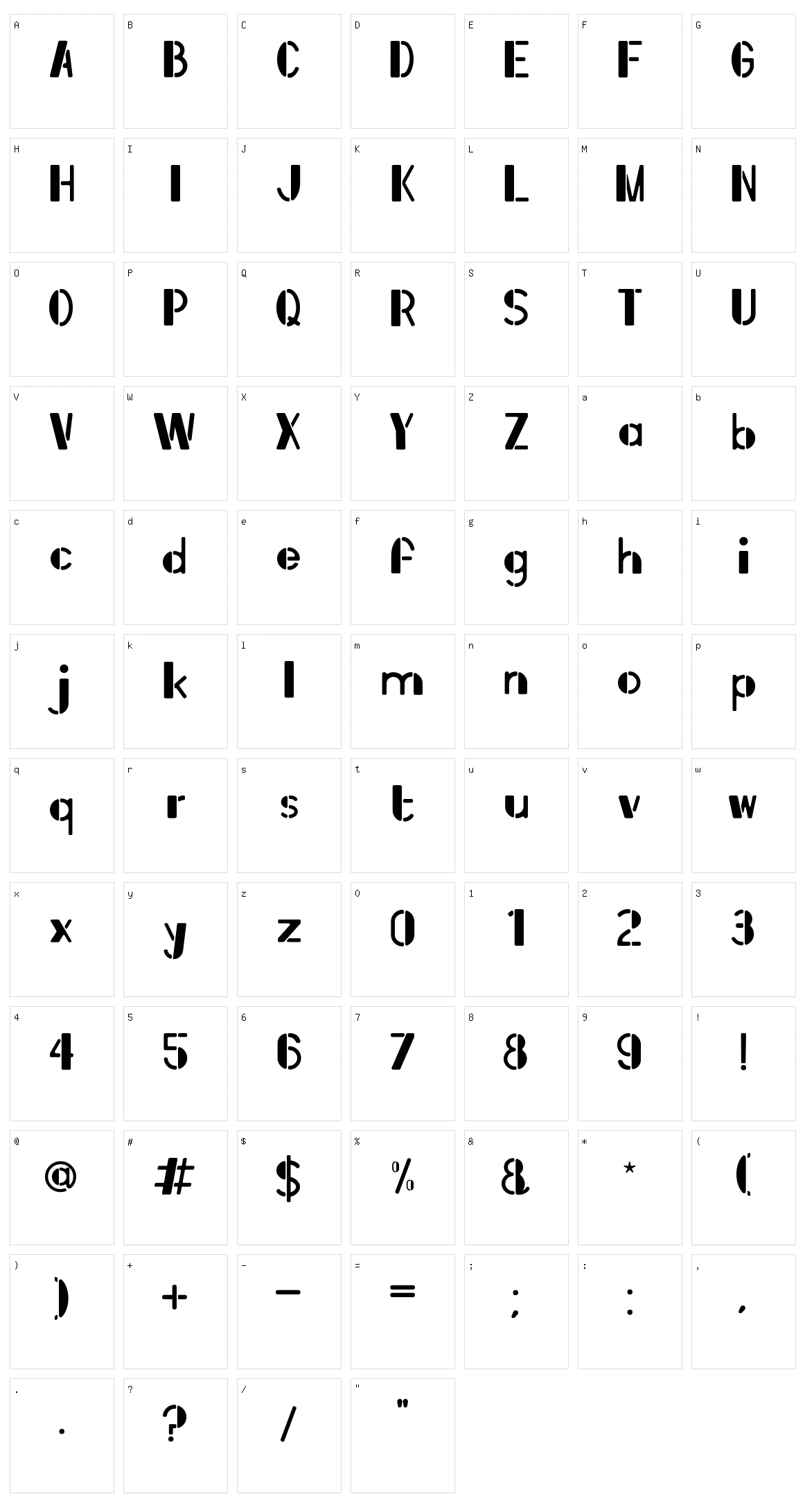
The free font Bipolar is carefully designed by longfont, showcasing a thoughtful balance of creativity and usability and falls under the Stencil font style. When you download the ZIP file, it contains only 12.33 KB of font files, making it lightweight and quick to download. Please review the license details below to understand permitted usage and distribution rights. If license information is not available, we recommend using this font for personal projects only or contacting the author directly for commercial usage permissions.